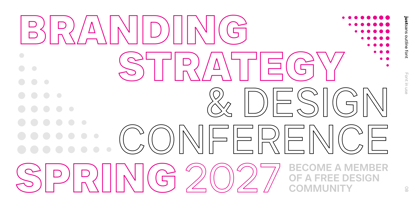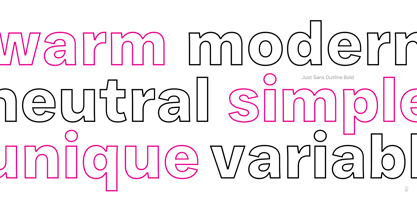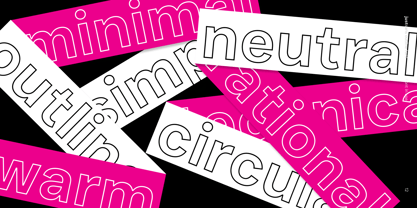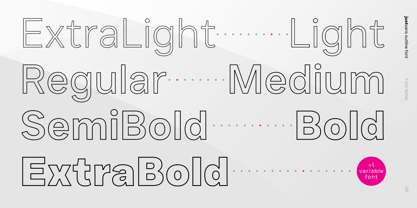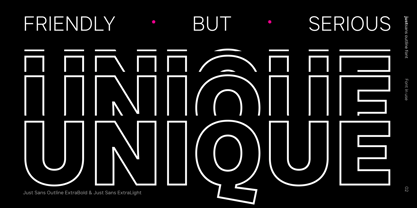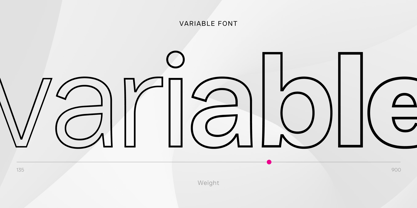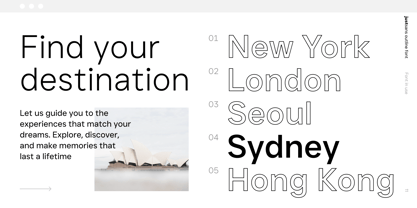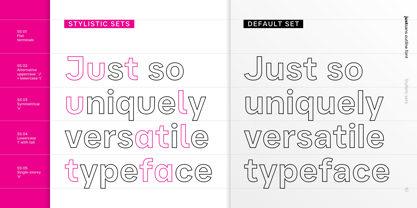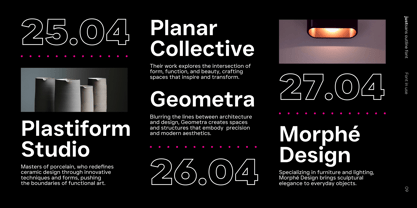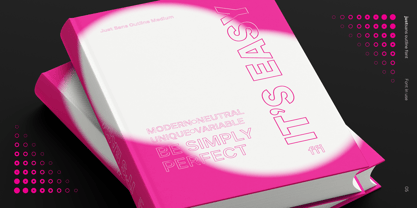
JUST Sans Outline is the perfect companion to the best-selling sans-serif JUST Sans, adding depth, contrast, and dimension while retaining the clean, modernist warmth of the original.
Designed to be used either standalone as a decorative outline typeface or alongside JUST Sans, it provides a striking way to create bold, expressive typography with creative flexibility.
With its precisely balanced negative and positive space, JUST Sans Outline delivers crisp definition and structured elegance.
Retaining the open, geometric foundation and signature sharp terminals of JUST Sans, it introduces a refined, linear aesthetic—perfect for logos, branding, packaging, UI/UX, signage, and high-contrast headlines.
Why Use JUST Sans Outline?
• The perfect balance of professional and expressive – Clean, minimal, yet expressive.
• Seamlessly pairs with JUST Sans – Combine solid and outline styles for striking contrast and depth.
• Designed for high-impact typography – Ideal for logos, headlines, display text, and modern brand identities.
• Eliminates manual outlining – Get flawless contour letterforms without spacing issues or tedious adjustments.
• Optimized for digital and print – Includes hand-hinted web fonts for crisp screen readability.
Pairing JUST Sans with JUST Sans Outline allows for seamless layering, effortless hierarchy, and striking visual depth—a must-have combination for designers looking to create typography with impact and precision.